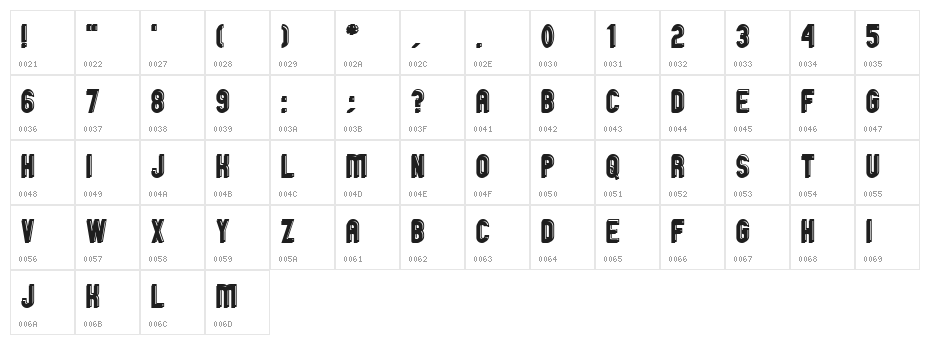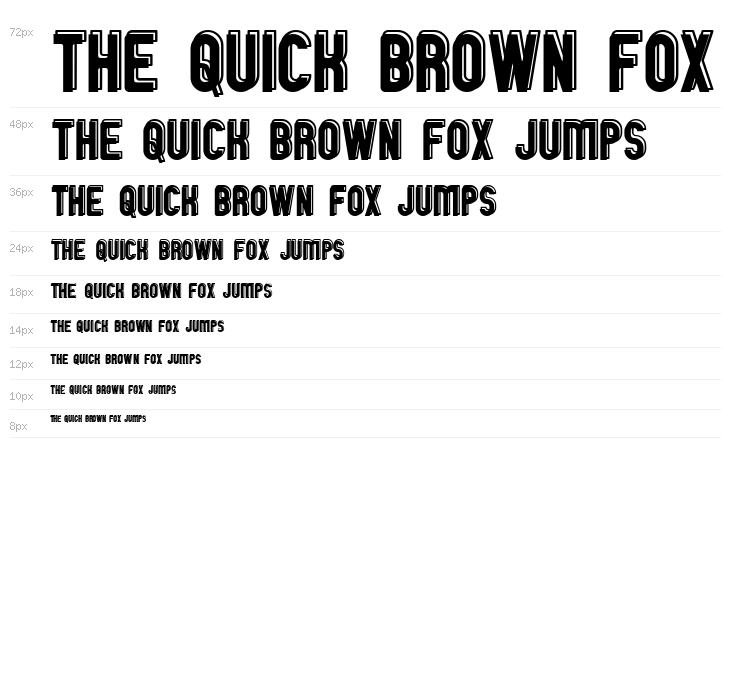
GM Exp Offset Outline Font
GM Exp Offset Outline Description
This font features a bold, outlined style with a distinct offset shadow effect, creating a three-dimensional appearance. The uppercase letters are uniform in height, with a geometric and structured form that emphasizes clarity and impact. The numerals and special characters maintain this bold, outlined aesthetic, ensuring consistency across all glyphs. The design is reminiscent of vintage signage, offering a sense of nostalgia while maintaining a modern edge. The font's strong presence makes it ideal for attention-grabbing headlines and titles.
Overall StyleVintage
Proposed ProjectsIdeal for retro-themed posters, signage, branding, and any project requiring a bold statement.